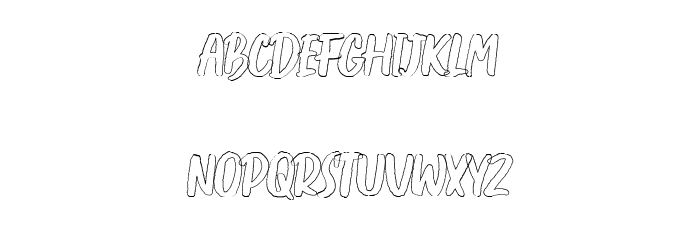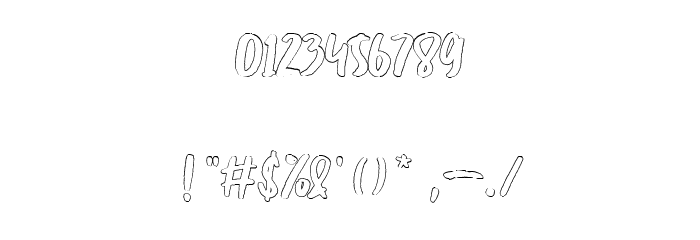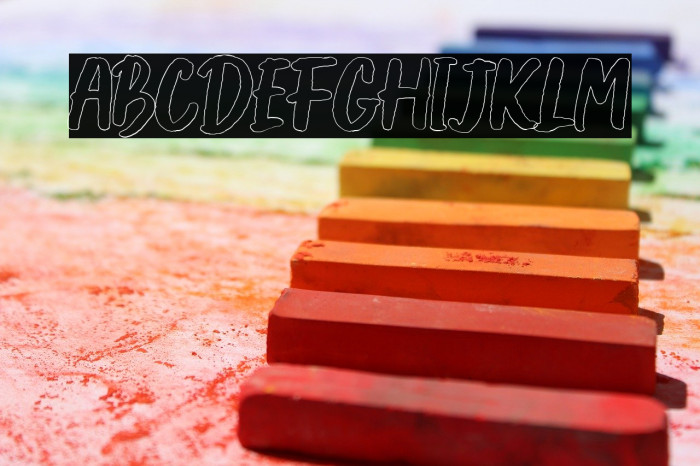
Creshex Brush Outline Font
This font features a playful and dynamic brush outline style, characterized by its hand-drawn appearance. The letters have a casual, artistic flair, with varying stroke widths that give it a lively and energetic feel. The uppercase and lowercase letters maintain a consistent style, with rounded edges and a slightly irregular baseline that enhances its informal look. The numbers and special characters are designed to match the overall aesthetic, making it versatile for creative projects. The font's outline nature adds a unique dimension, making it stand out in designs.
A playful, brush-style outline font with a dynamic and artistic flair.
- Font: Creshex Brush Outline
- Proposed Projects: Ideal for creative projects such as posters, invitations, greeting cards, and branding materials that require a fun and artistic touch.